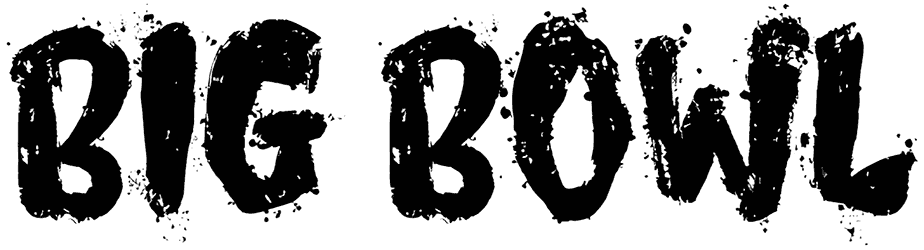
The Shadow Adventure Font
The Shadow Adventure is ideal for designers looking for excitement in their world. This Halloween font has ribbons and broken lines that give it a fantasy look and can be very impressive on gift packages, greeting cards, and booths.
With this holiday font, you can find new ways to implement your scary ideas without having numbers on hand, which will leave repetition behind and breathe a fresh breeze into your design world.
Designed by: LJ Design Studios